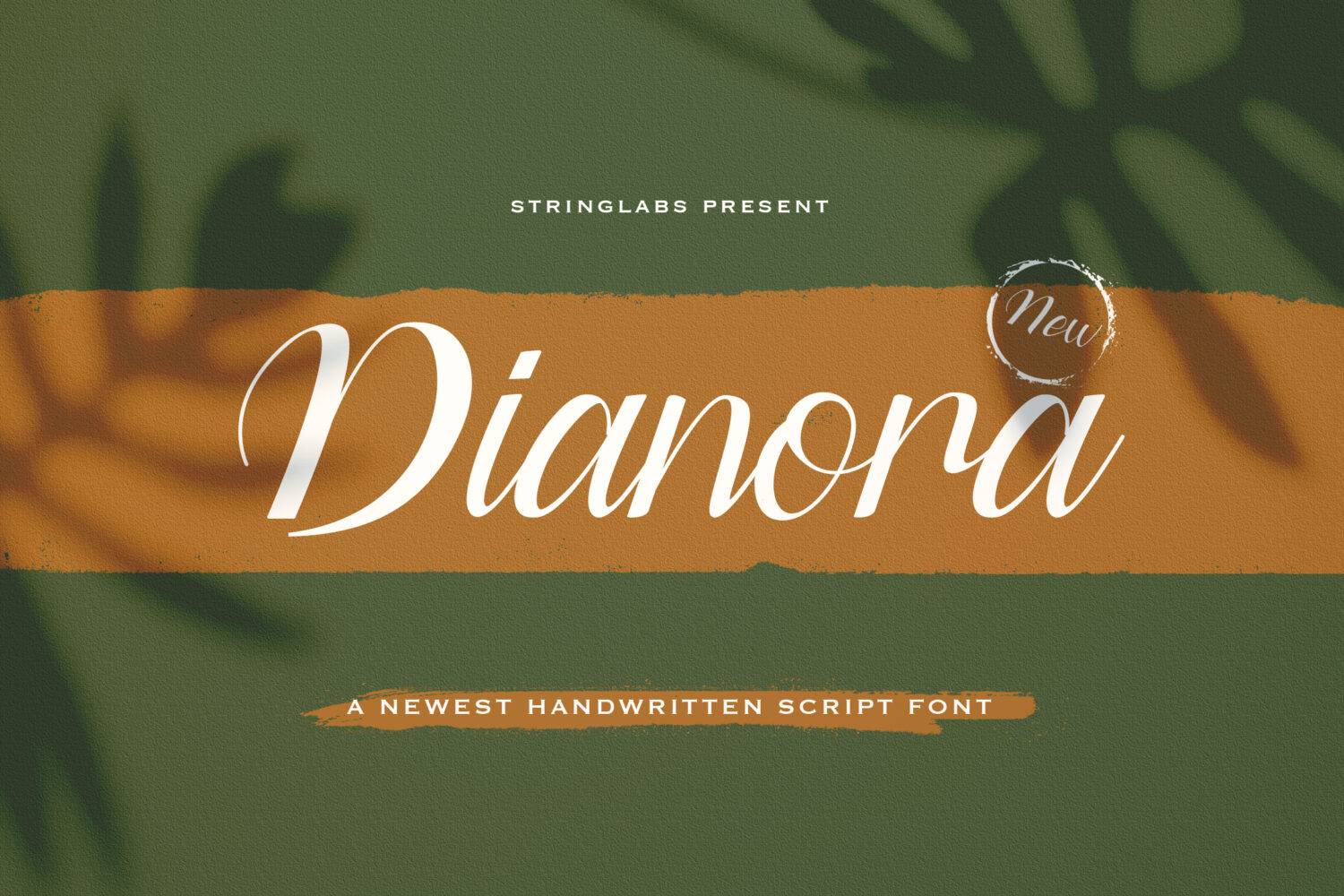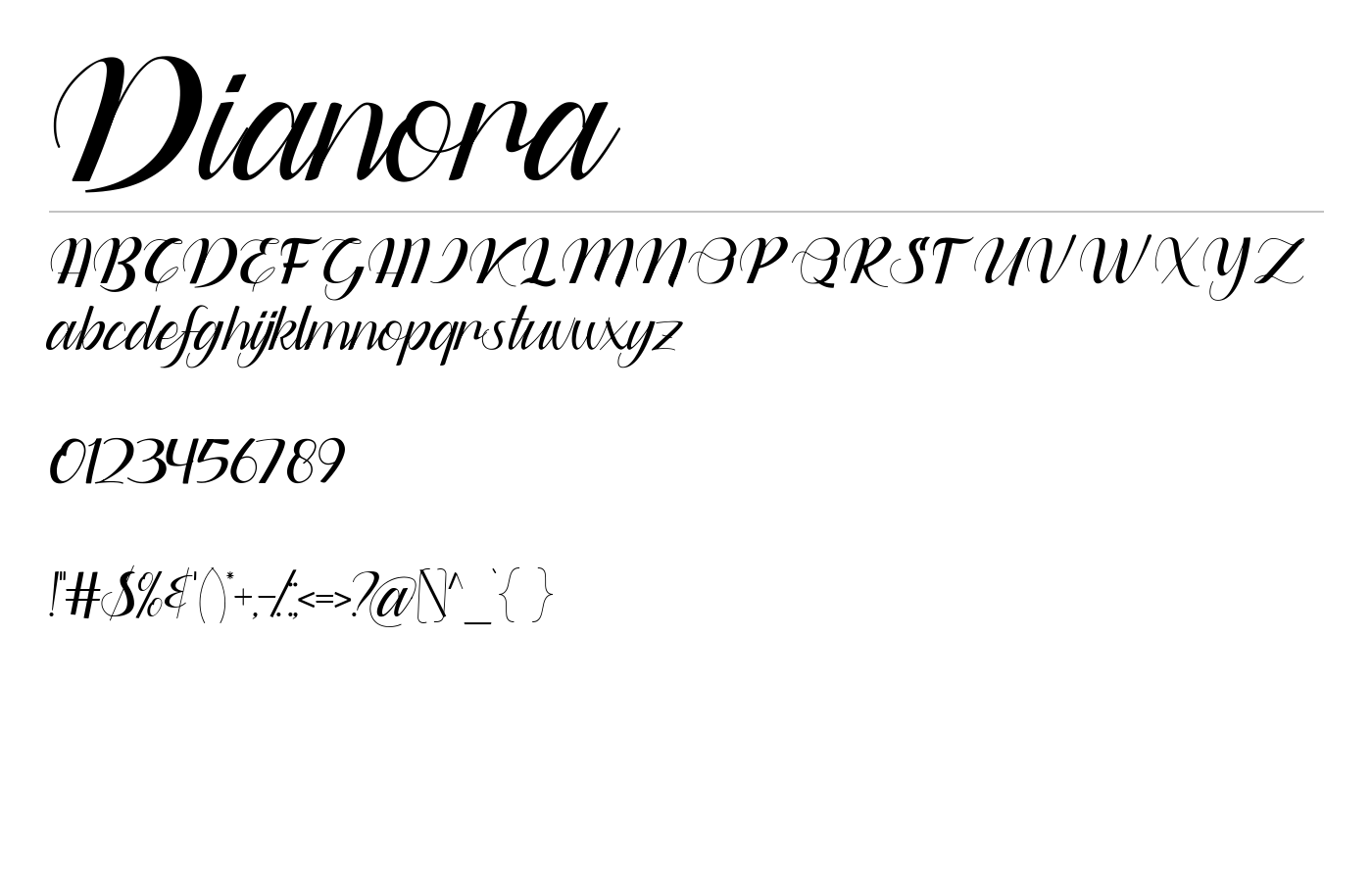
Dianora is an elegant script font characterized by its smooth, flowing strokes and high contrast between thick and thin lines, giving it a refined and sophisticated feel. Its narrow, italicized letterforms with unique flourishes make it ideal for luxury branding, invitations, and stylish headlines where a graceful, classic touch is desired. This font works beautifully in contexts that call for a sense of elegance and femininity, adding a polished and artistic flair to any design.
Dianora Font
About Dianora Font
| Font family | Dianora Font |
| Designer | Stringlabs |